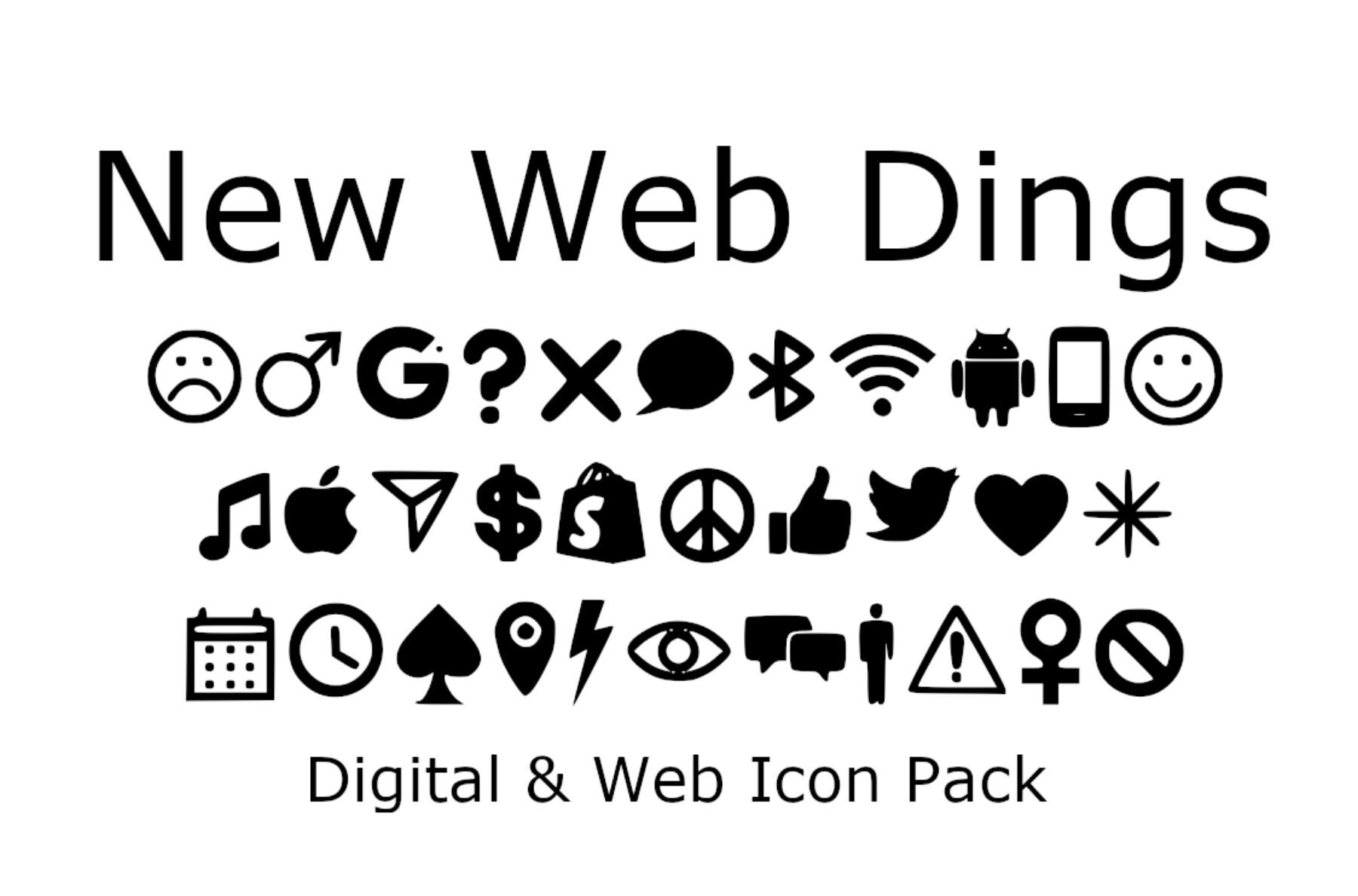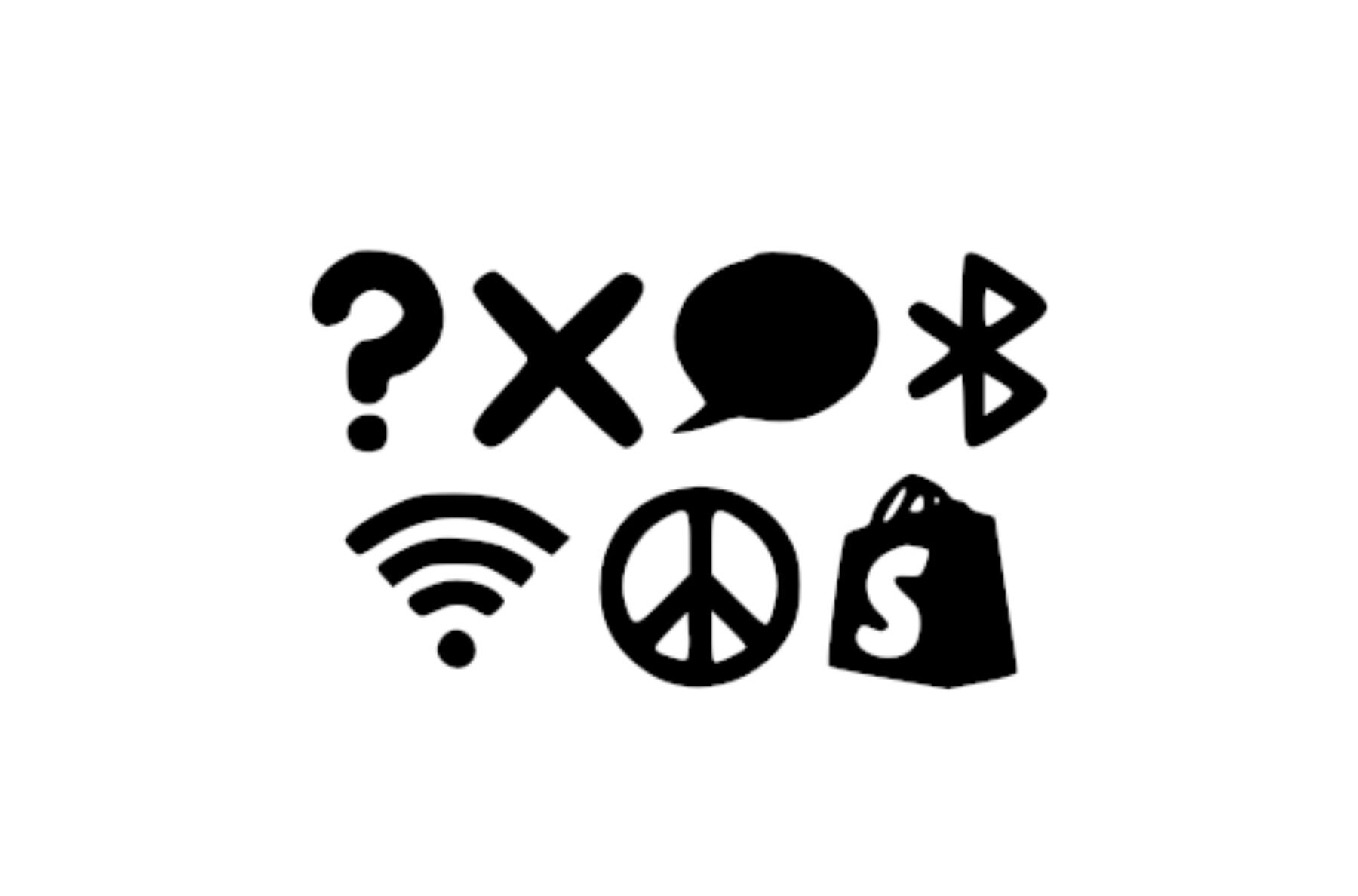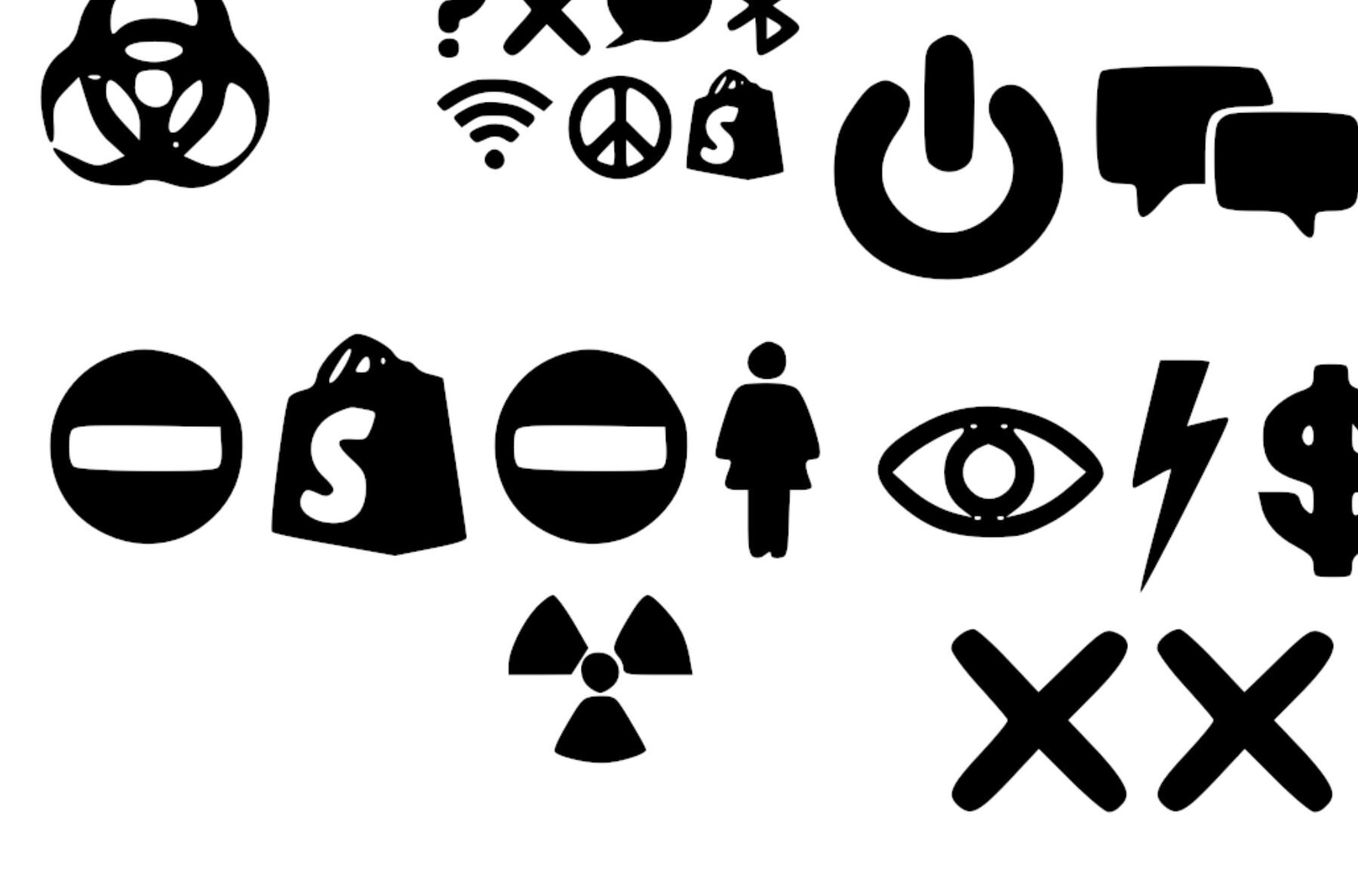
New Web Dings Font
New Web Dings
Explore the New Web Dings collection, a charming and practical suite of web and digital media icons designed to elevate any web design project. Each icon is crafted with precision to ensure clarity and compatibility across various digital platforms.New Web Dings Icon Set
Icon Features